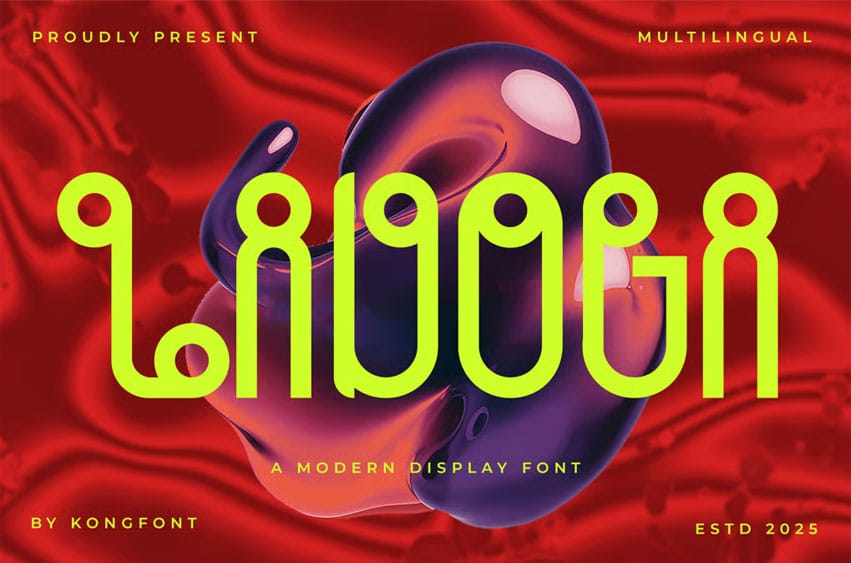
Ladoga Font is a modern display font crafted to make your designs stand out with clean geometry and bold character. Inspired by minimalism and contemporary aesthetics, Ladoga offers a strong visual presence while maintaining clarity and balance.
Its sleek lines and modern proportions make it perfect for branding, posters, packaging, and digital headlines. Each letterform is carefully designed to provide a refined and professional look, ensuring versatility across both print and digital media.
Whether you’re building a bold identity or crafting a clean, modern layout, Ladoga adds a touch of sophistication and confidence to every project.